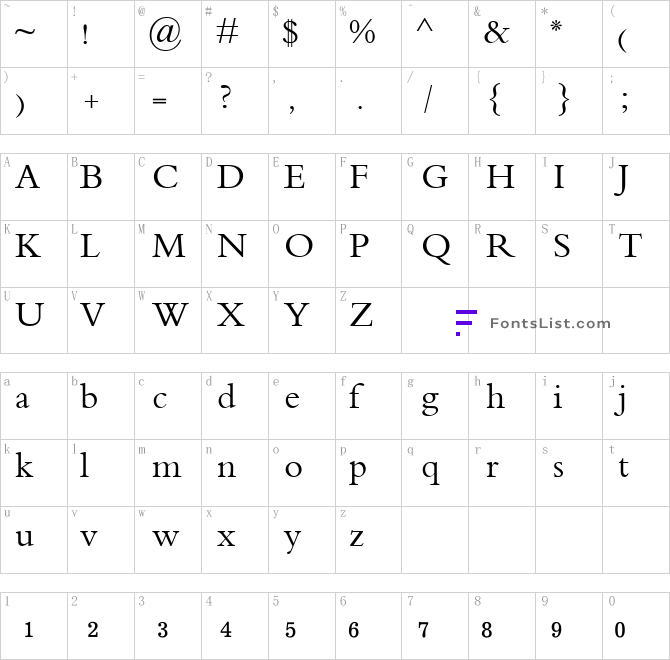
- Font Name:Asir Kkara
Asir-Kkara.ttf is a very beautiful artistic font, Asir-Kkara.ttf is widely used in the design and printing of various books and pictures,Asir-Kkara.ttf has a strong visual impact,Asir-Kkara.ttf is a commonly used font in newspapers, magazines and books, and is used in posters, e-commerce Poster design, store design, logo design, font design and other fields.Asir-Kkara.